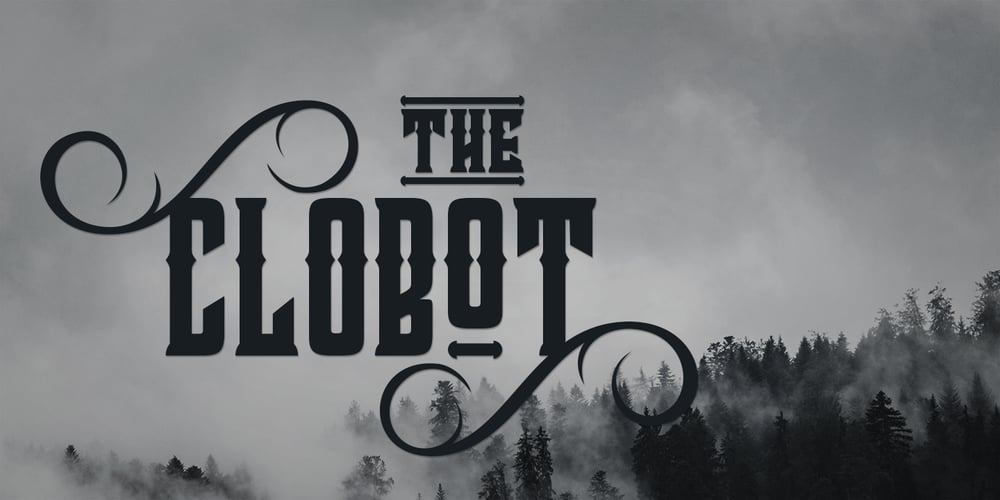
Clobot Font Family was designed by Faka Pratama Putra and published by Tama Putra. Clobot contains 2 styles and family package options. Clobot is a tough and strong decorative display typeface. It is suitable for any design needs, branding, art quote, cover title, t-shirts, any lettering design needs and more. It has many alternative and ligature glyphs which make it very versatile font and it’s also multi-lingual. It comes with stylistic alternates and 10 stylistic sets. It provides flexibility to enhance your designs.